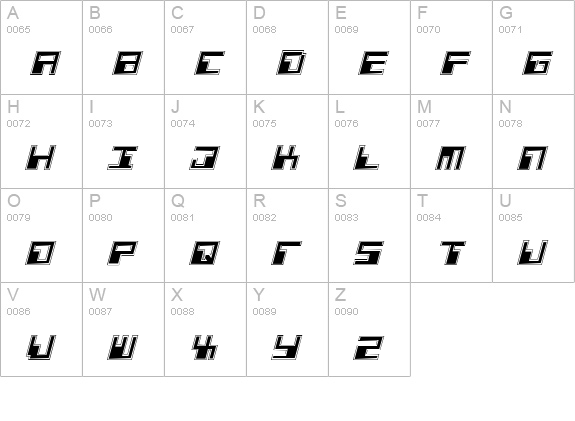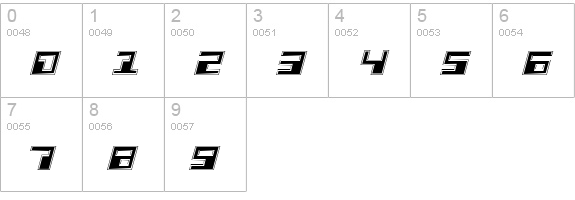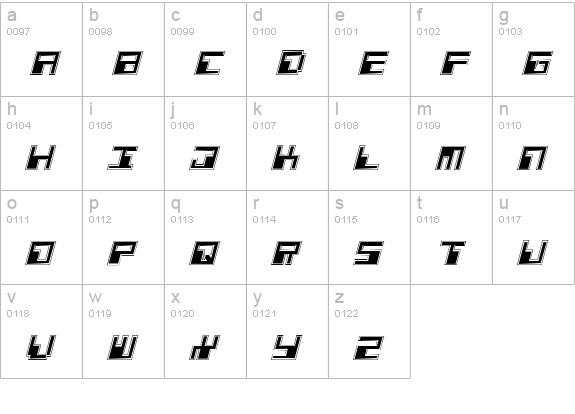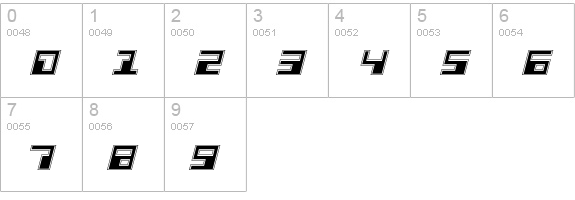
Phaser Bank Pro Italic is a distinctive, italic variant in the Phaser typeface family \xE2\x80\x94 well suited to design and typography projects.
Phaser Bank Pro Italic font offers a sleek and modern design that is perfect for adding a touch of sophistication to your projects. Its italic style adds a dynamic and elegant flair to any text, making it ideal for various design applications. This versatile font is free to download at FontsMarket.com, allowing you to easily access and use it in your creative projects without any cost. With its unique and eye-catching appearance, Phaser Bank Pro Italic font is sure to elevate your designs and leave a lasting impression on your audience.